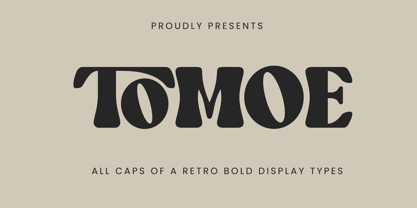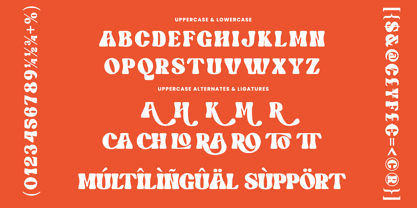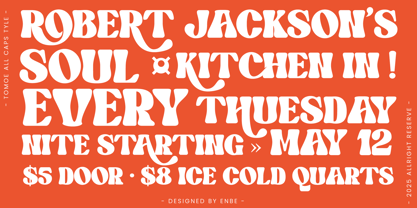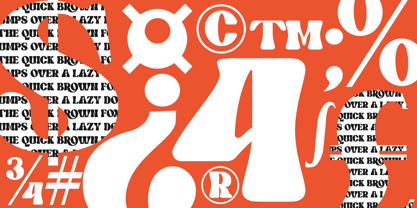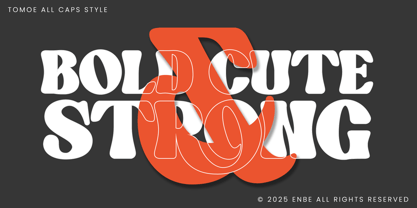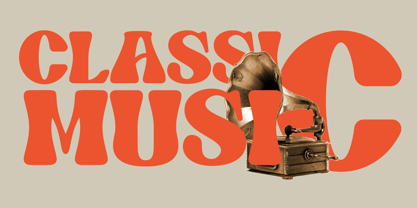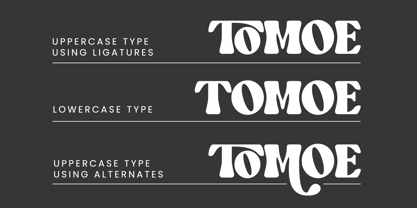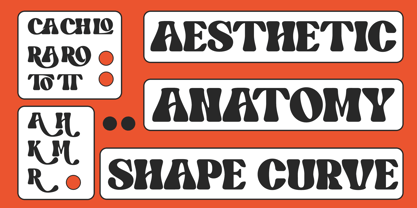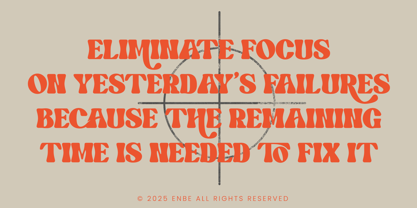
Tomoe
by Enbe Studio
The Tomoe Font Family was designed by Sarwo Edhi Prayitno and published by Enbe Studio. Tomoe contains 1 styles. More about this family
Tomoe is a bold, curvaceous, and aesthetically pleasing font that stands out with its unique design.
Featuring an all-caps alphabet with a range of alternates and ligatures in the uppercase, this font offers a captivating blend of classic charm, playful elegance, and retro flair.
With full multilingual support and a complete set of numerals, Tomoe is highly versatile and perfect for any design project.